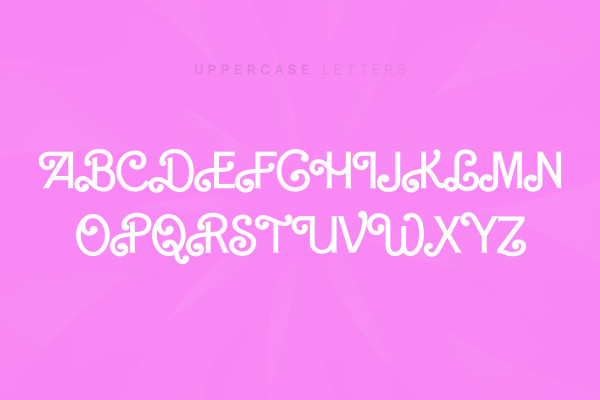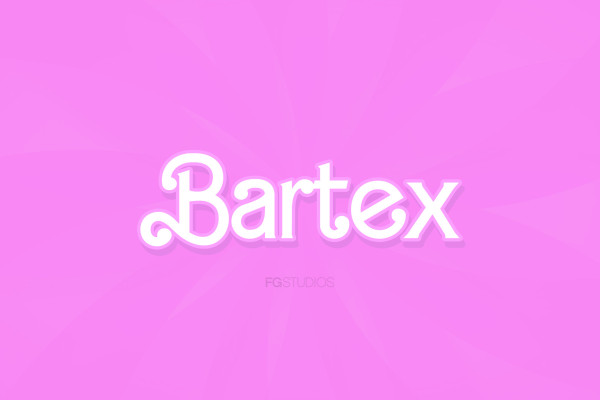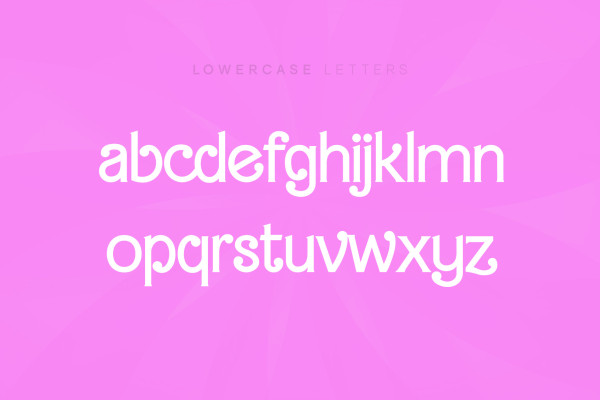
Bartex Font
Bartex Font, this serif font is stylish and sophisticated. It has a classic feel with thin strokes, sharp angles, and elegant curves. It is perfect for any project looking to add a touch of class. This font is PUA encoded which means you can access all glyphs and swashes effortlessly!